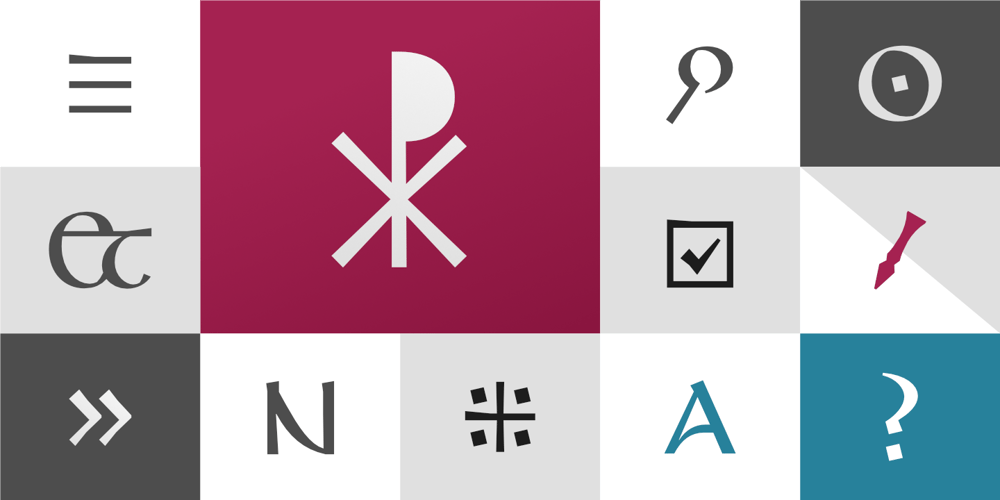
Diocletian Font Family was designed by Marin Santic and published by Type Fleet. Diocletian contains 2 styles and family package options. Diocletianfortiter in re, suaviter in modoDiocletian typeface captures the essence and glory of the Diocletian’s palace, one of the most imposing heritages of the late Roman empire. It is designed to bring the confidence and fortune to contemporary communication in a heroic and gentle manner.Diocletian typeface is based on the Uncial script, made up of wide, rounded letters. It is desirable for cafes, restaurants, shops, hotels and apartments. The typeface’s x-height is around 76% of its capitals. The font is enriched with ligatures and special characters.